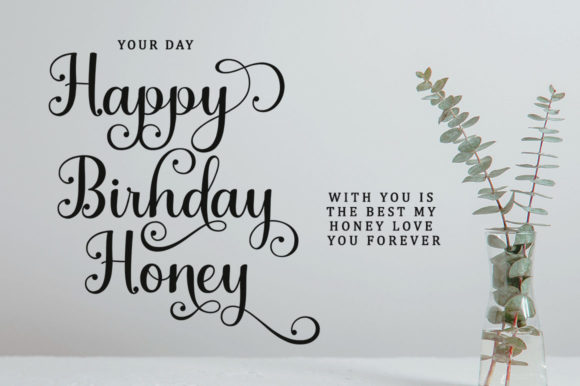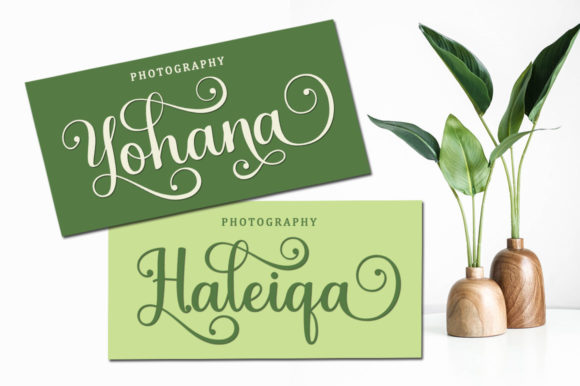
Melinda Giovany Font
db-ku.com - Script & Handwritten -- Melinda Giovany is a very cute, elegant and unique handwritten font. Expertly designed to be a true favorite, this font has the potential to take any of your creative ideas to the highest level!